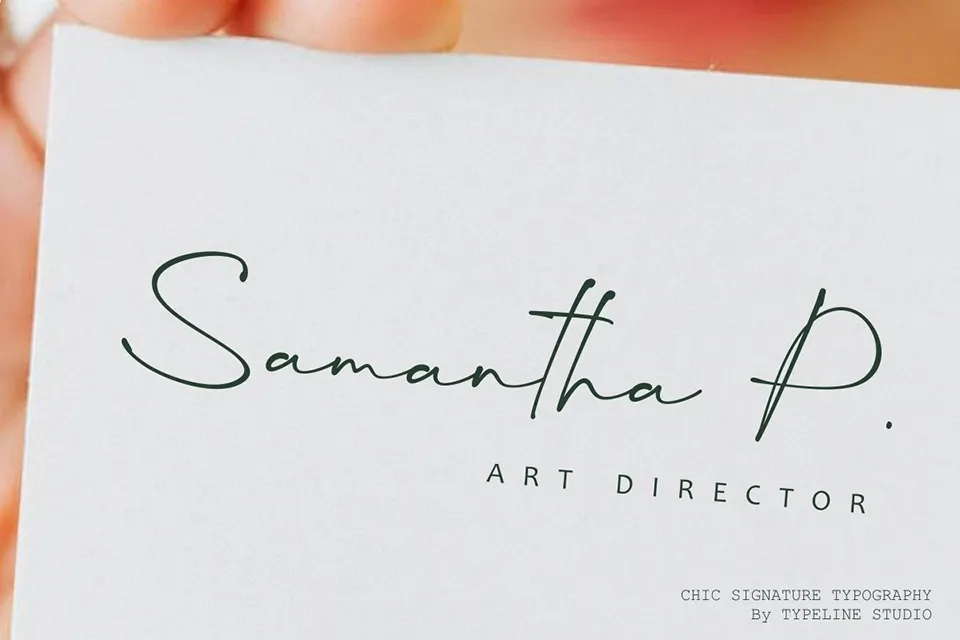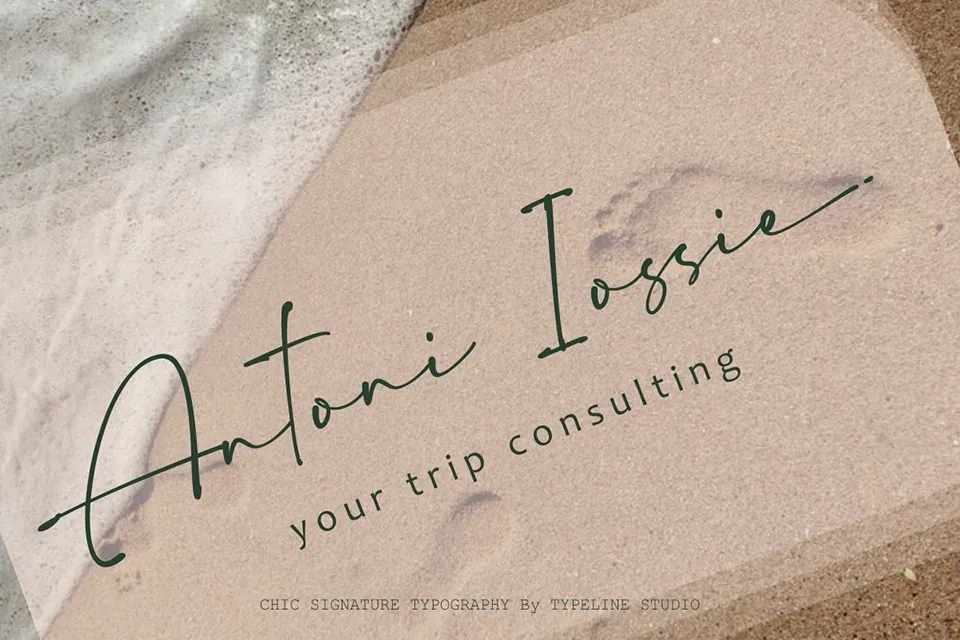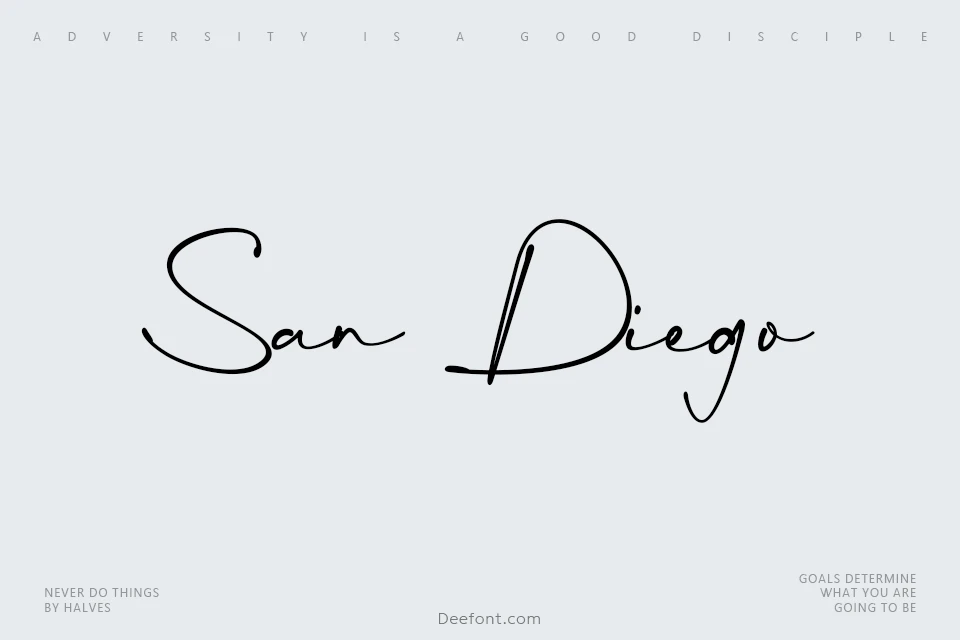
San Diego Font
San Diego Font, created by Typeline Studio, is a chic and elegant signature script typeface. It features flowing, expressive letterforms that mimic stylish handwriting, giving it a sophisticated and personal feel. Its design is perfect for projects requiring a touch of class and individuality, such as high-end branding, logos, wedding invitations, social media graphics, and quotes. This typeface adds a refined, handcrafted aesthetic, making text appear both upscale and approachable. The distinct signature style ensures designs stand out with effortless elegance.